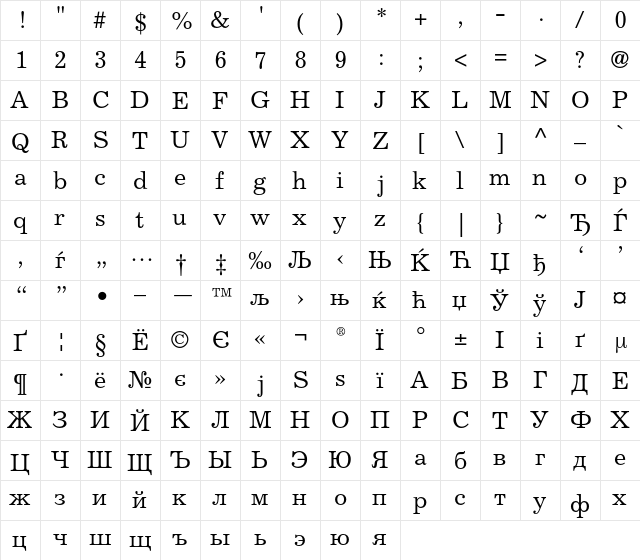
Excelsior Cyrillic Upright
Design Context for Excelsior Cyrillic Typeface
Excelsior Cyrillic offers clean, dependable letterforms without strong stylistic allegiance, making it a practical choice for designers who need flexibility.
Pro Tip: Use Excelsior Cyrillic in both headline and body roles to test its range before committing to a single application.